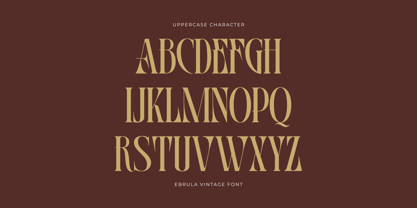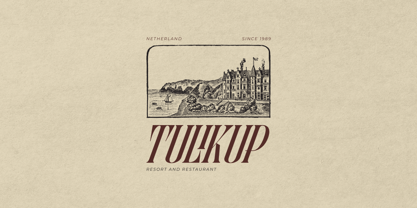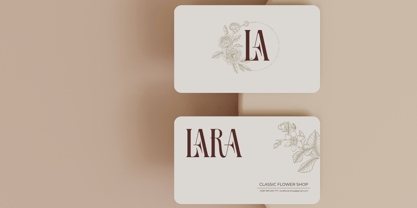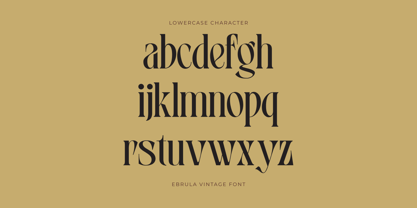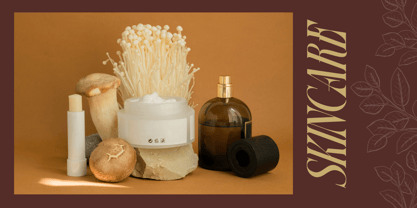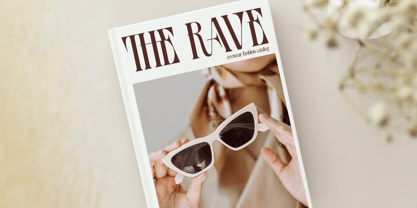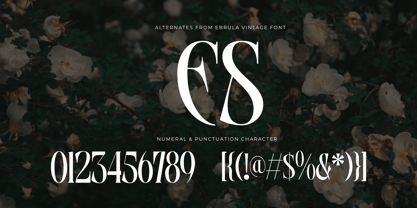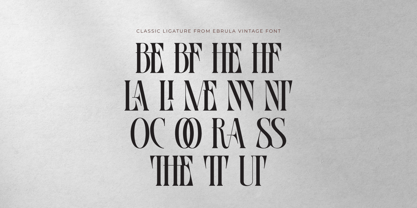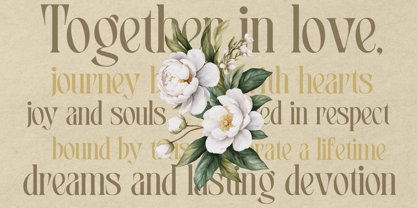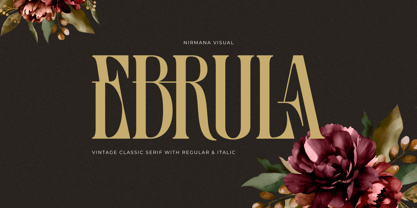
Ebrula Vintage
Ebrula is a vintage classic serif font that blends timeless elegance with refined detail. Perfectly crafted for logos, magazines, and website design, Ebrula offers a sophisticated presence with its sharp serifs and balanced curves. Its stylish character adds a touch of heritage and class, making it ideal for brands seeking a strong and memorable identity. Ebrula brings tradition into modern design with grace and versatility.